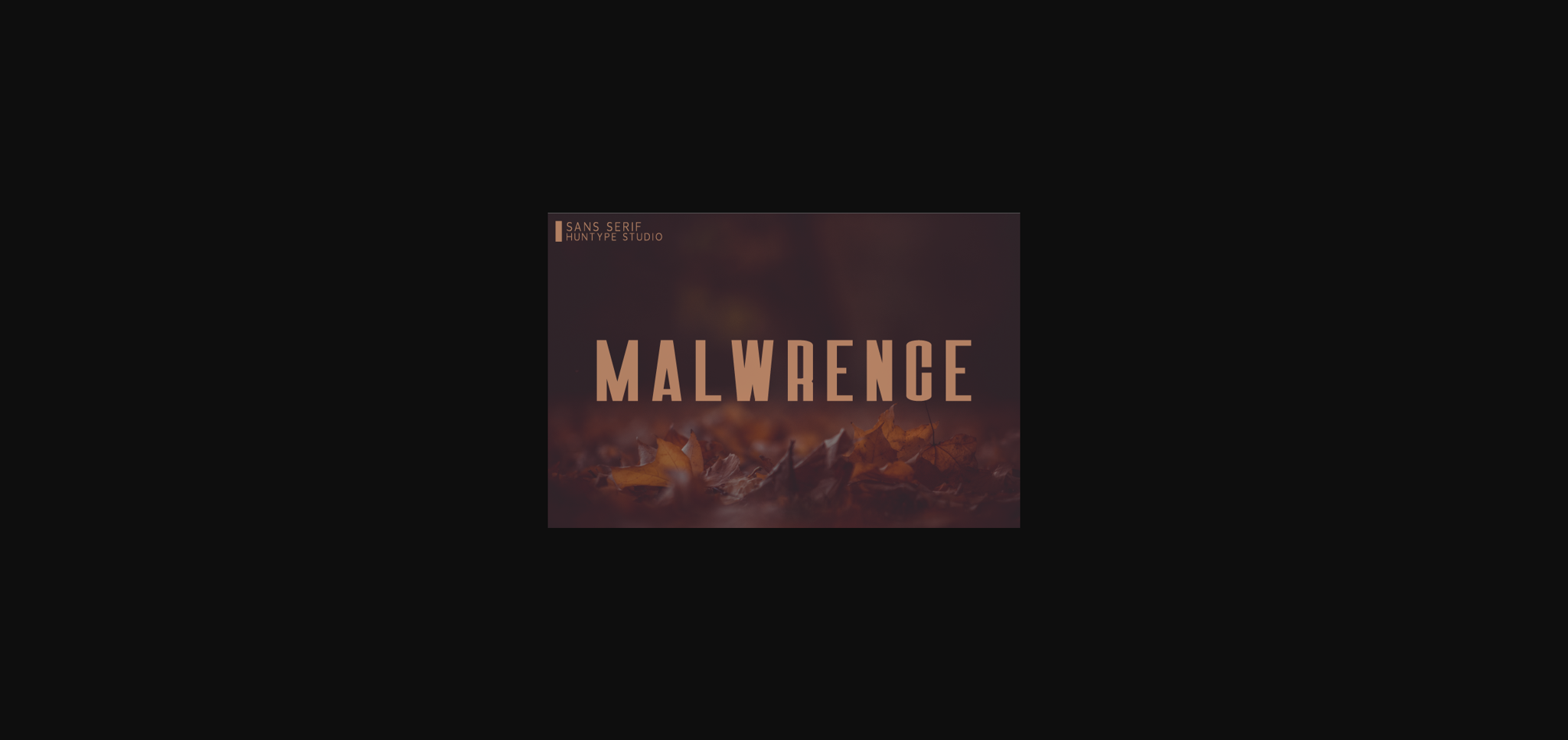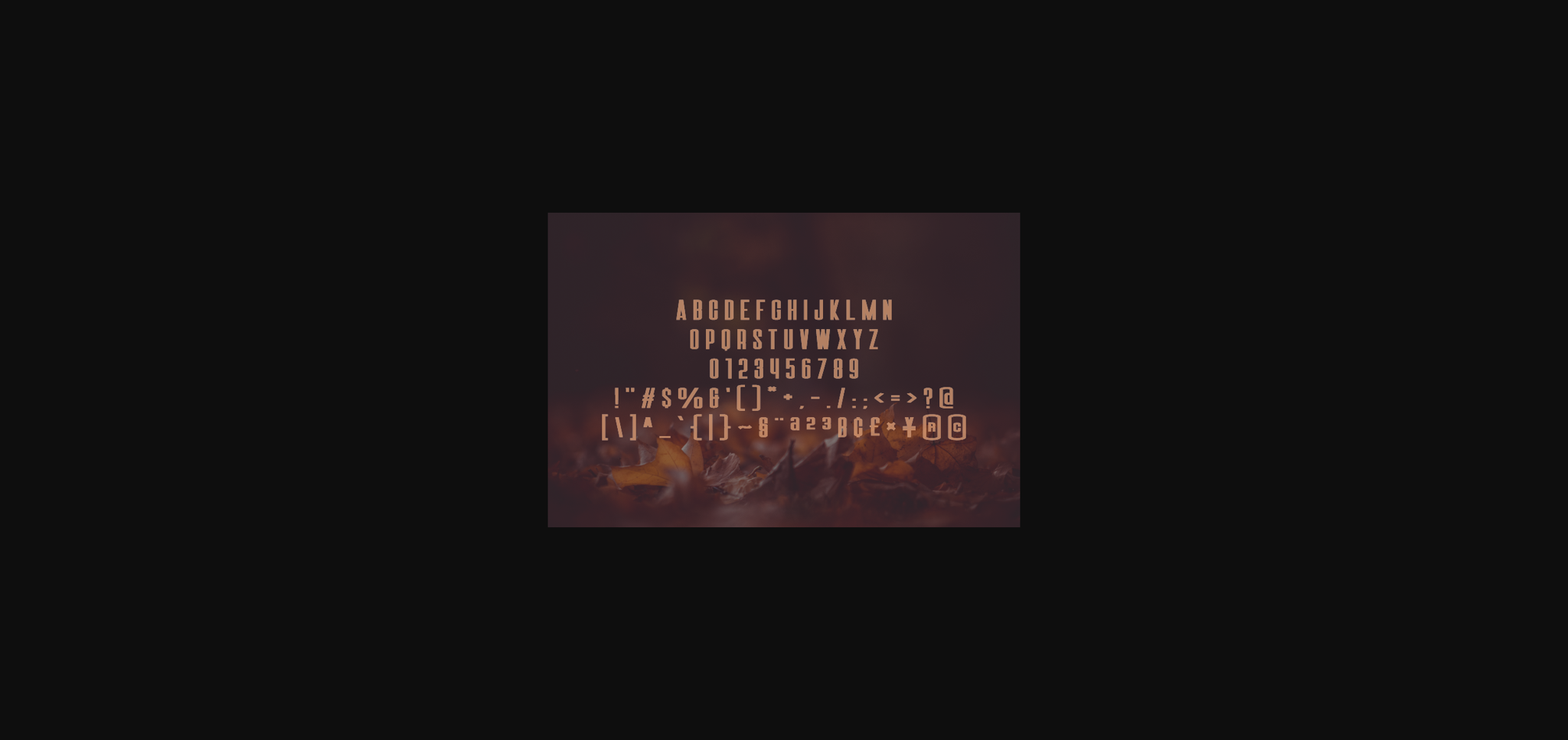
Malwrence Font
About Malwrence Font
Malwrence is a bold and strong sans serif font, carefully handcrafted to become a true favorite. Its casual charm makes it appear wonderfully down-to-earth, readable and, ultimately, incredibly versatile. Malwrence will look outstanding in any context, whether it’s being used on busy backgrounds or as a standalone headline!